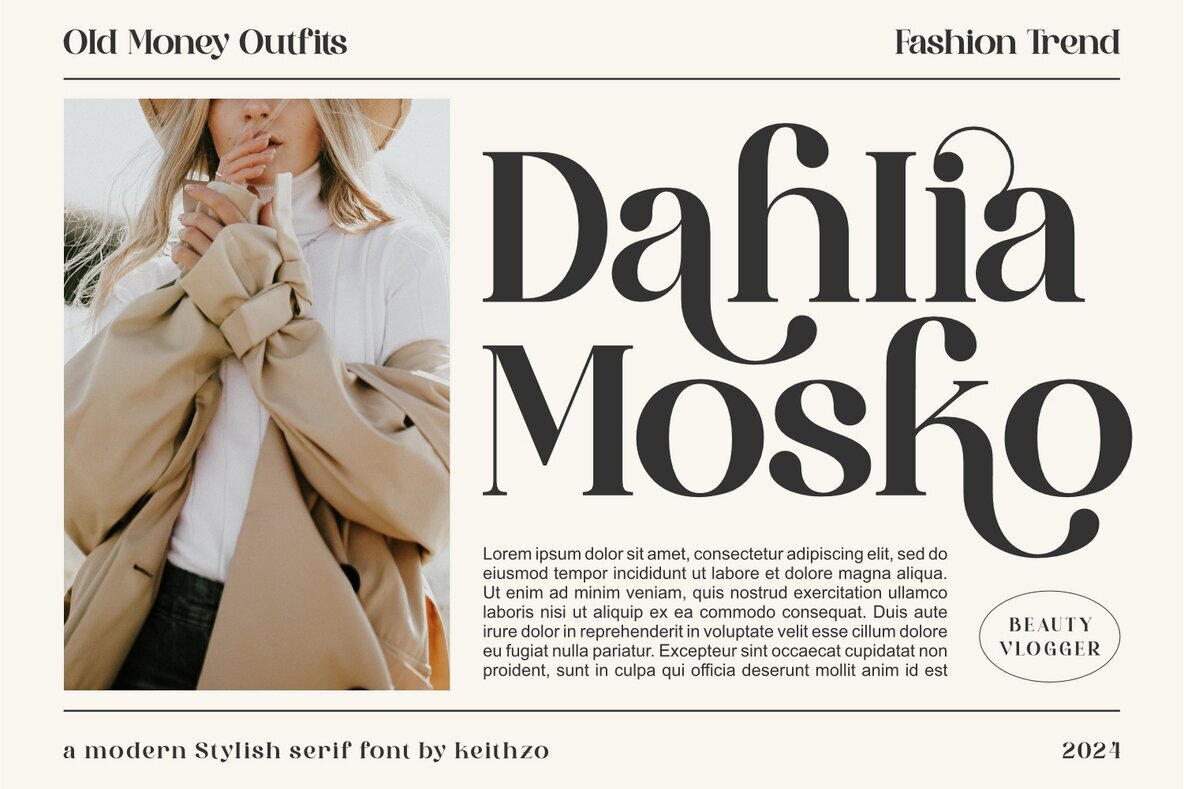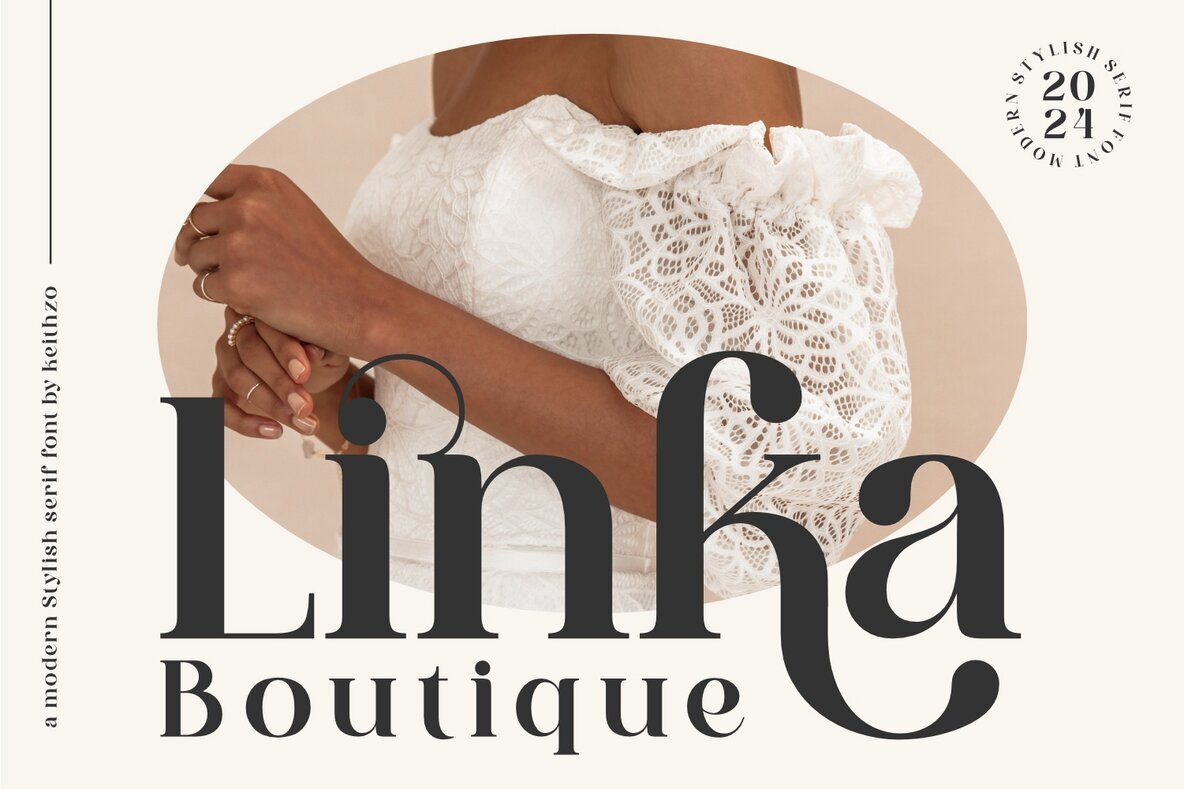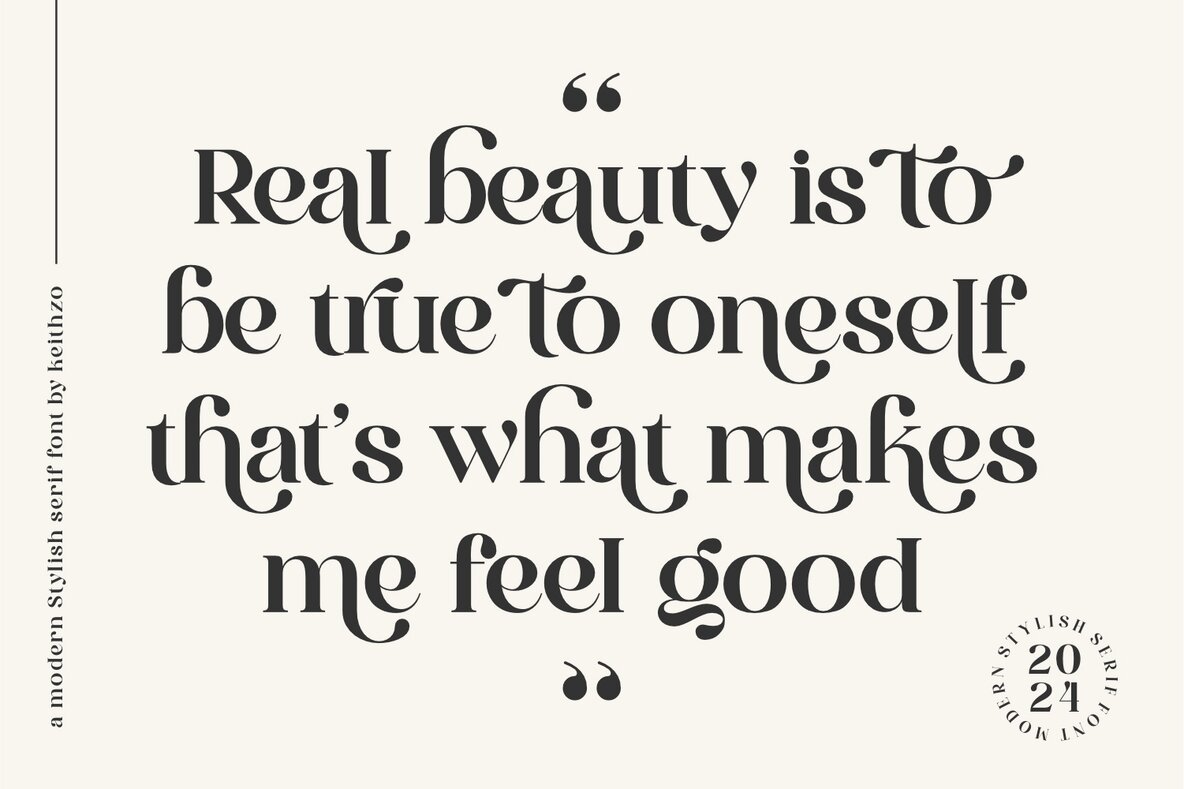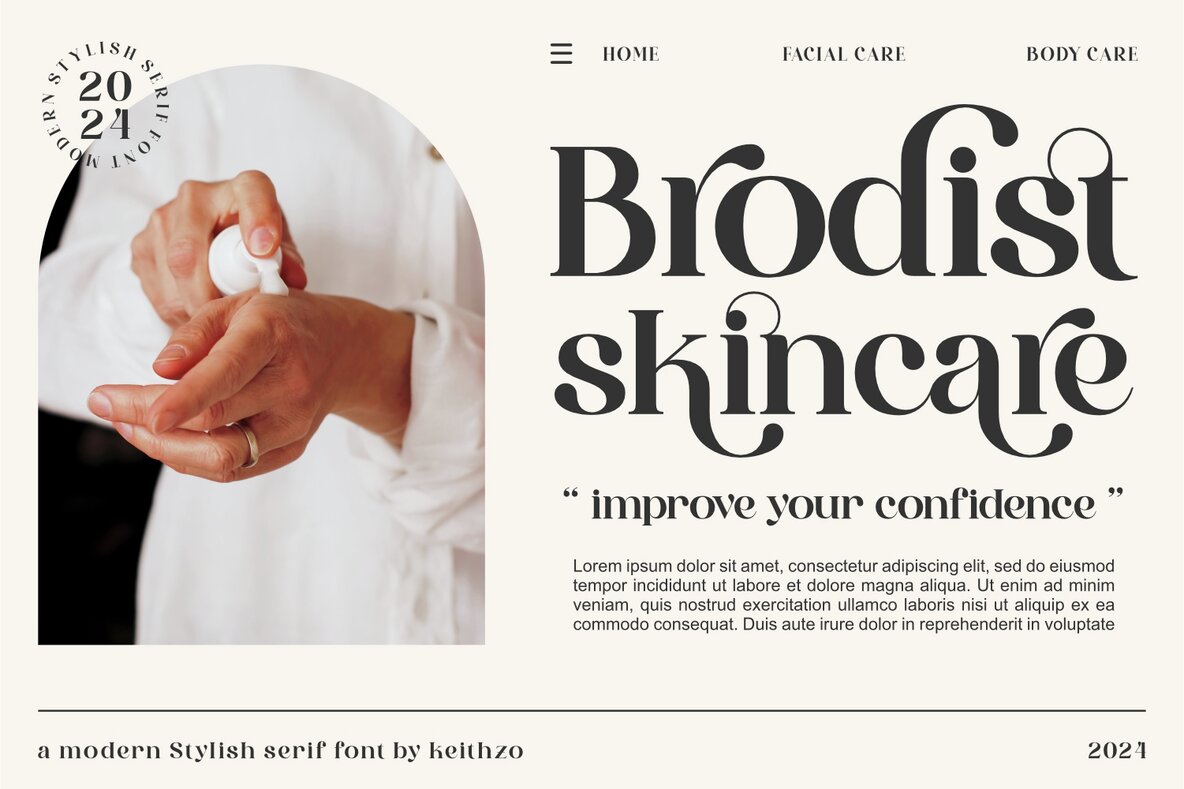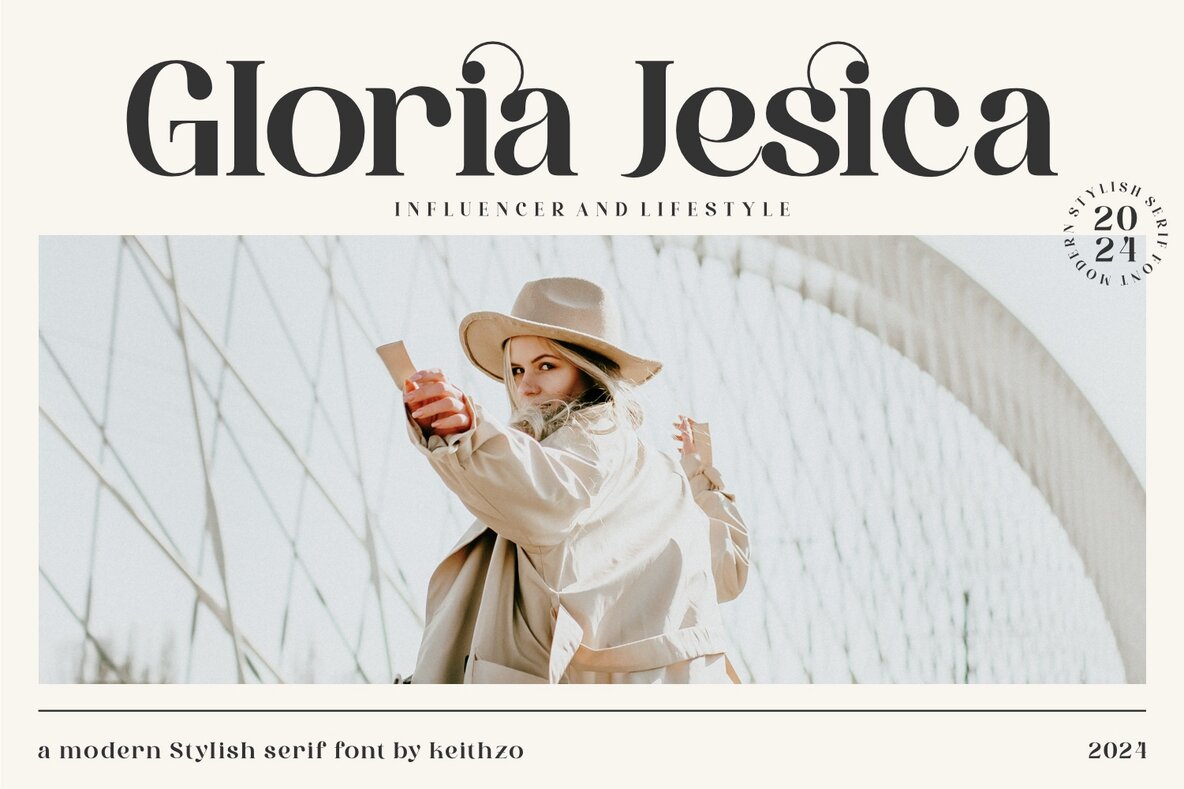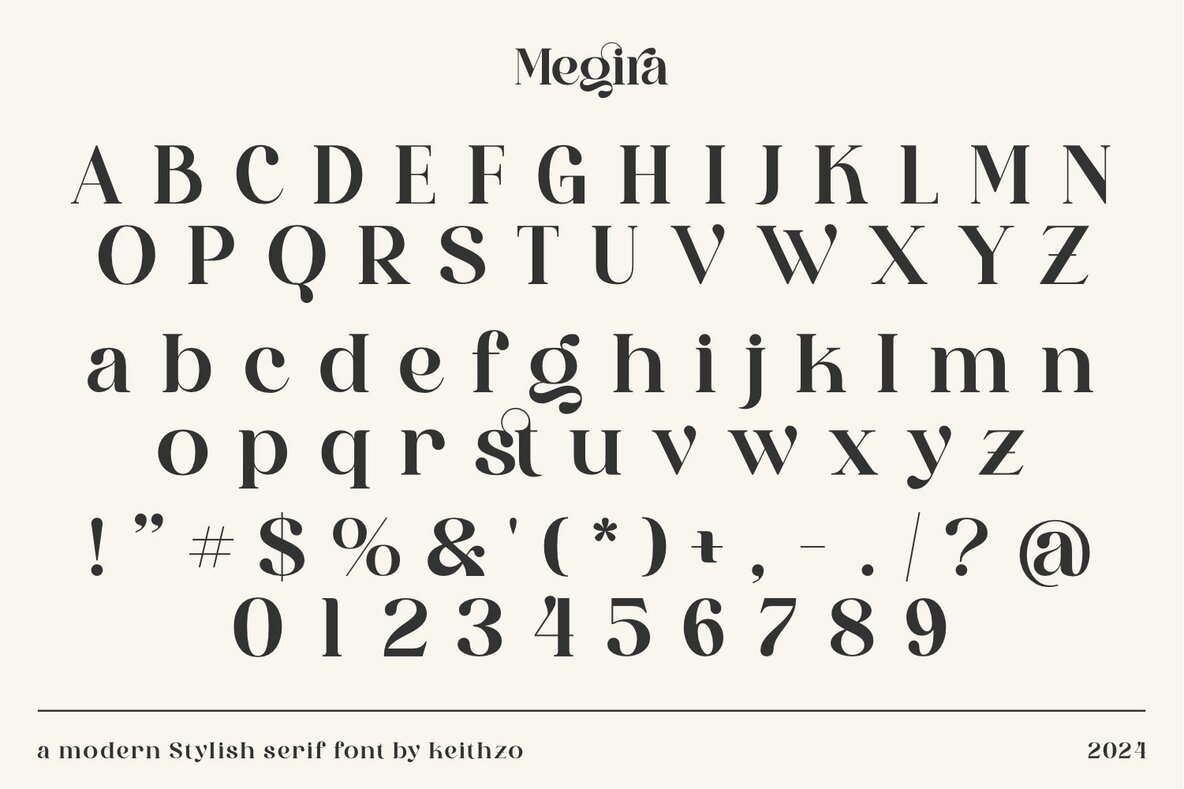
Megira Font
Megira stands out as a modern, stylish serif display font, captivating with its refined lines and sleek curves. It brings a sophisticated presence to any design project, from editorial layouts to branding materials. Ideal for conveying professionalism and contemporary aesthetics, Megira suits various creative endeavors.Megira: Elegant and Modern Serif Display Font